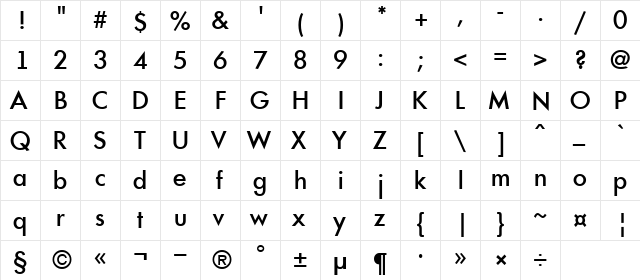
a_FuturicaMedium Regular
Design Context for a_FuturicaMedium Typeface
a_FuturicaMedium has a distinctly futuristic character, with geometric precision and clean angles that feel at home in technology, gaming, and sci-fi contexts.